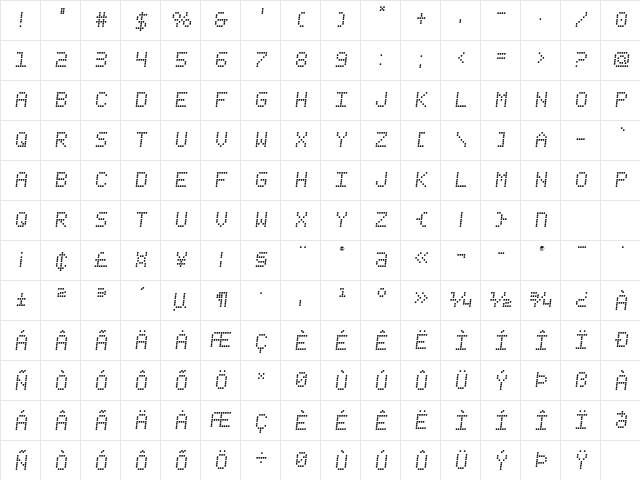
Complete Fanfare Ticker Semi-Italic glyph index. Displaying only characters natively supported by Fanfare Ticker Semi-Italic font.
Fanfare Ticker is a composed and adaptable typeface that performs quietly and consistently across a wide range of design contexts. The slanted form adds forward momentum and visual energy.